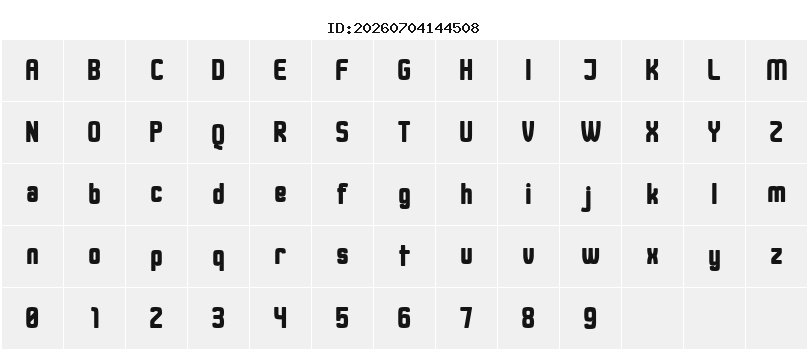
• Font Name: Duster AB
• Font Style: Thick
• Full Font Name: Duster AB Thick
• Designer: Alex Banks
About Duster AB.ttf
Duster AB.ttf is a modern, elegant sans-serif font designed for ultimate readability and visual harmony. Perfect for branding, headlines, web design, and print materials.